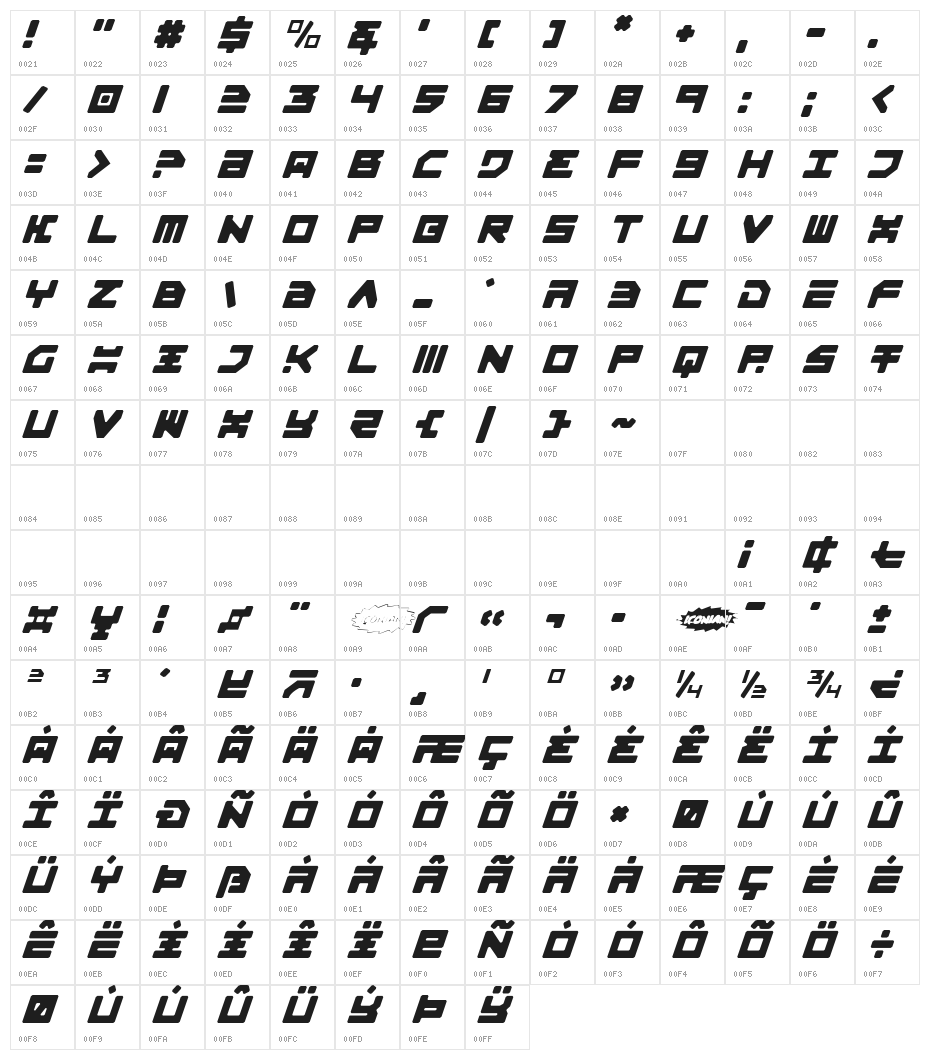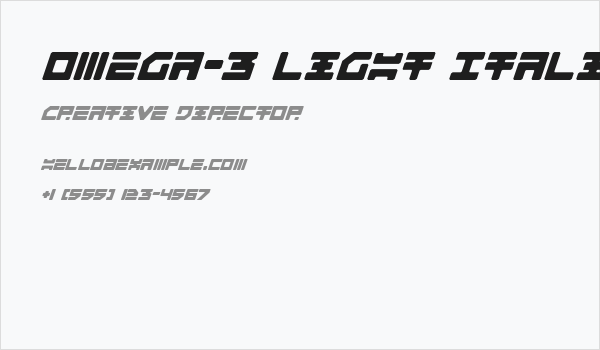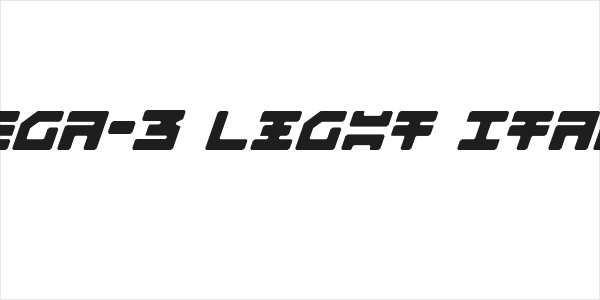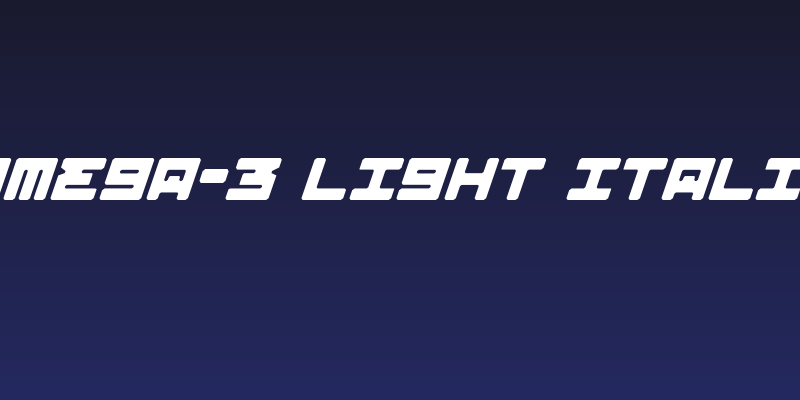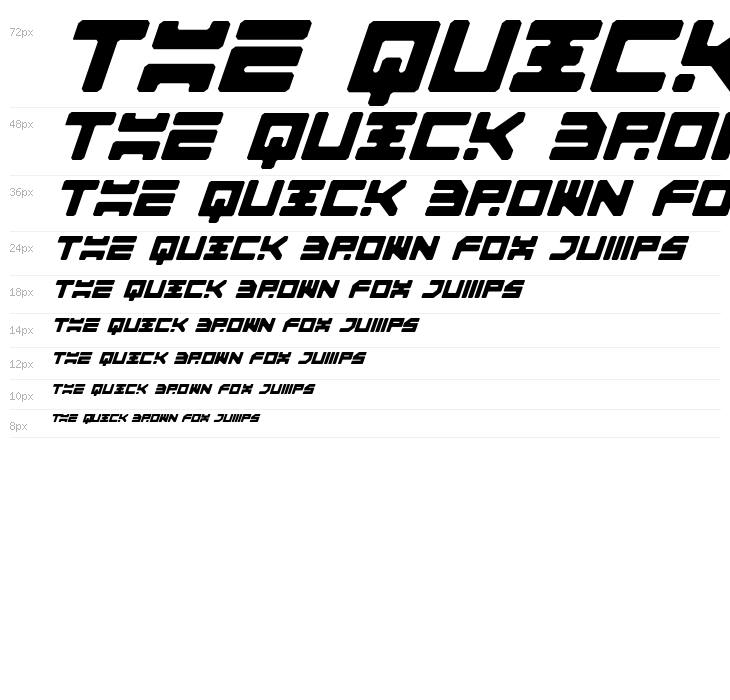
Omega-3 Light Italic Font
Omega-3 Light Italic Description
This font features a bold, futuristic design with angular, geometric shapes. The characters are slightly italicized, giving a sense of motion and dynamism. The uppercase and lowercase letters maintain a consistent style, with sharp edges and a uniform stroke width. The numbers and special characters are designed to match the overall aesthetic, ensuring a cohesive look across all elements. This font is ideal for projects that require a modern and edgy appearance, such as technology branding, sports team logos, or sci-fi themed designs.
| Use Case | Logos, Headlines |
| Proposed Projects | Technology branding, sports logos, sci-fi themes, modern posters. |